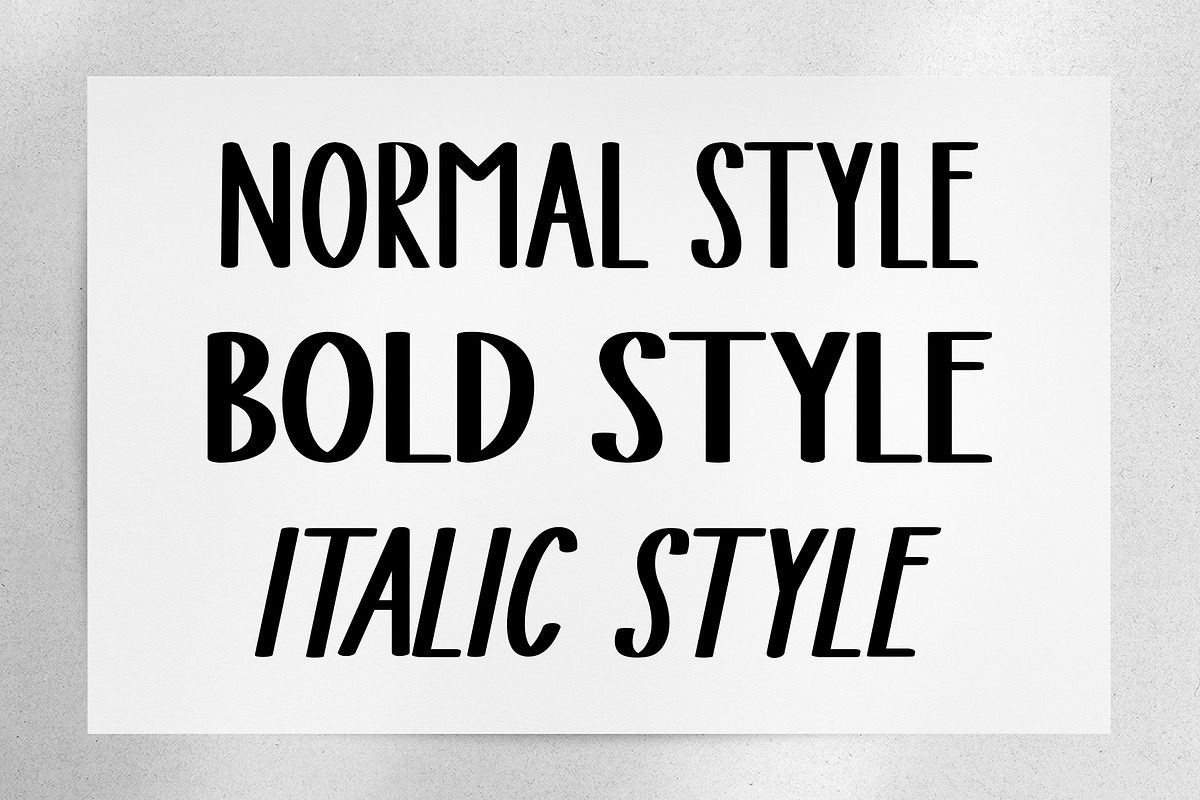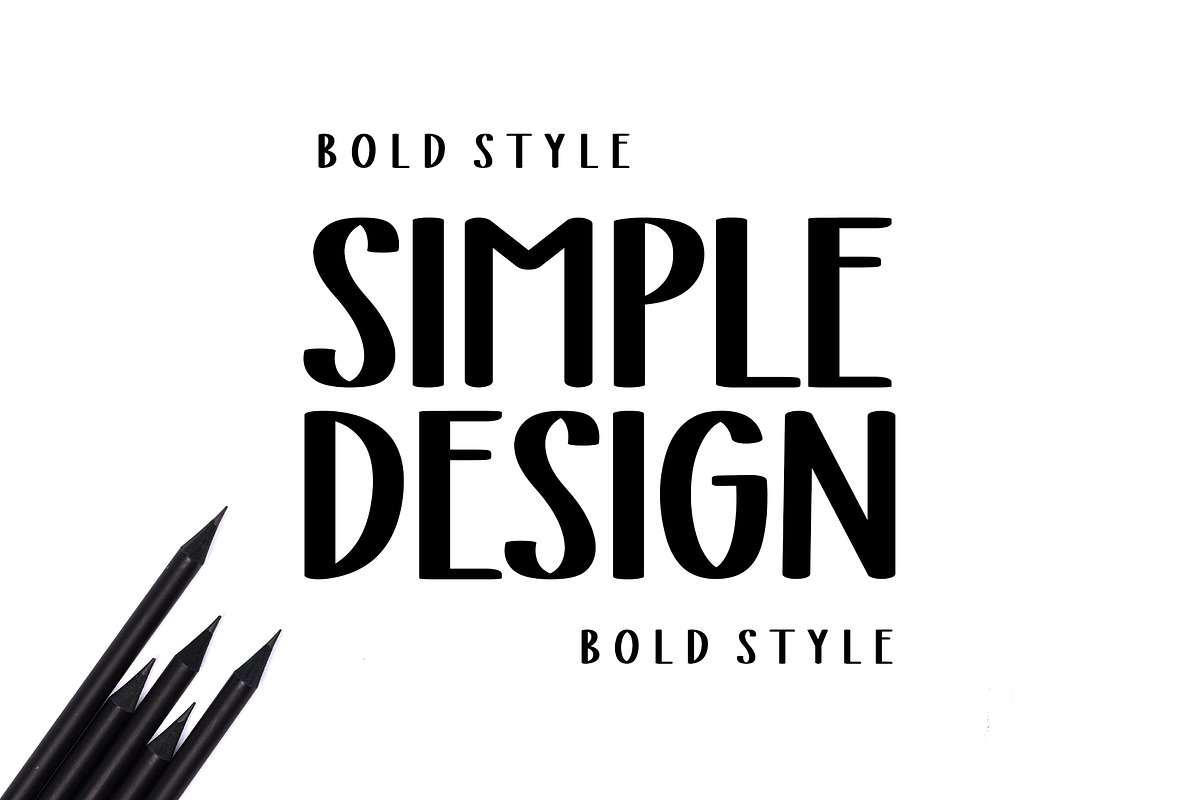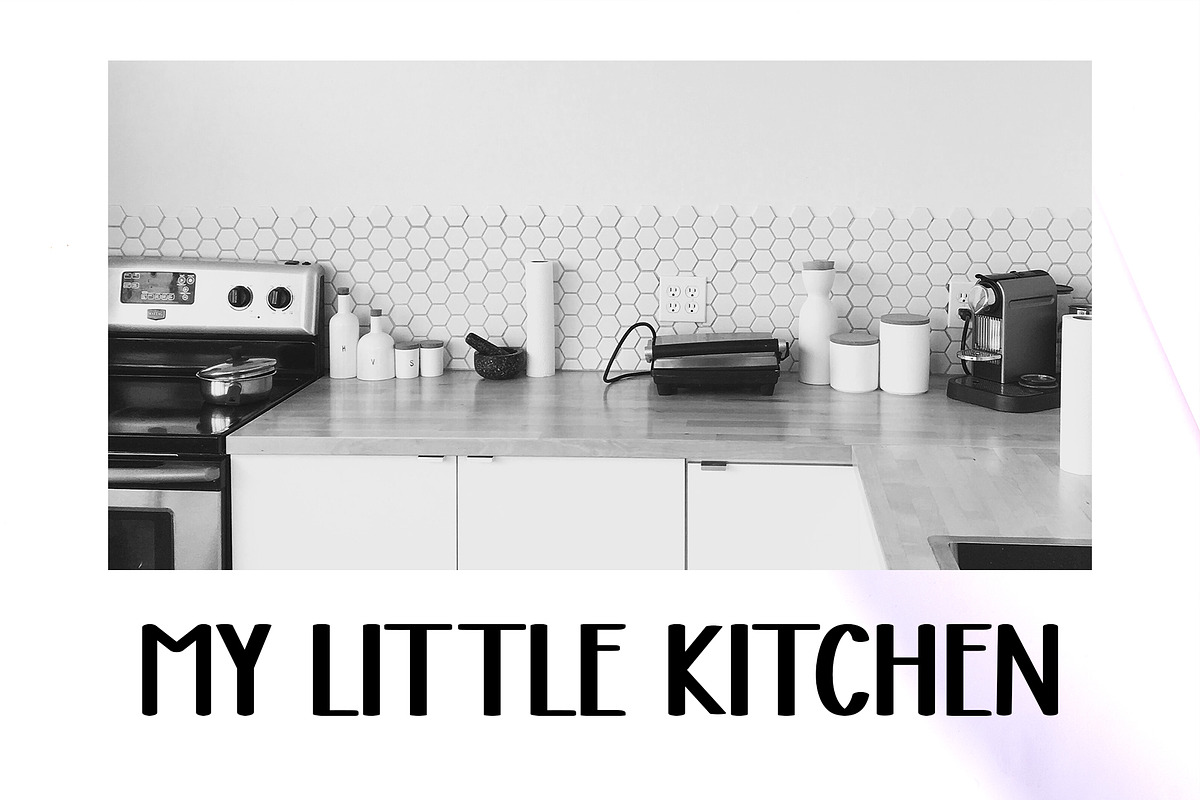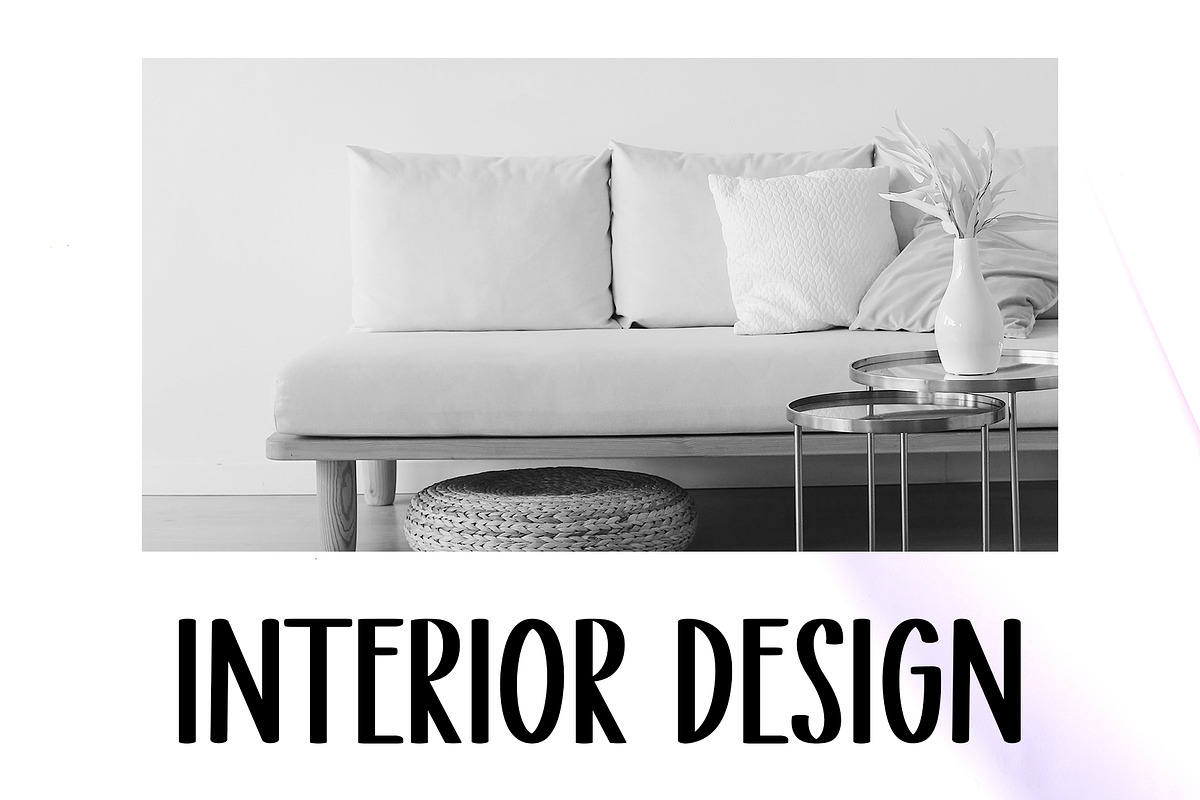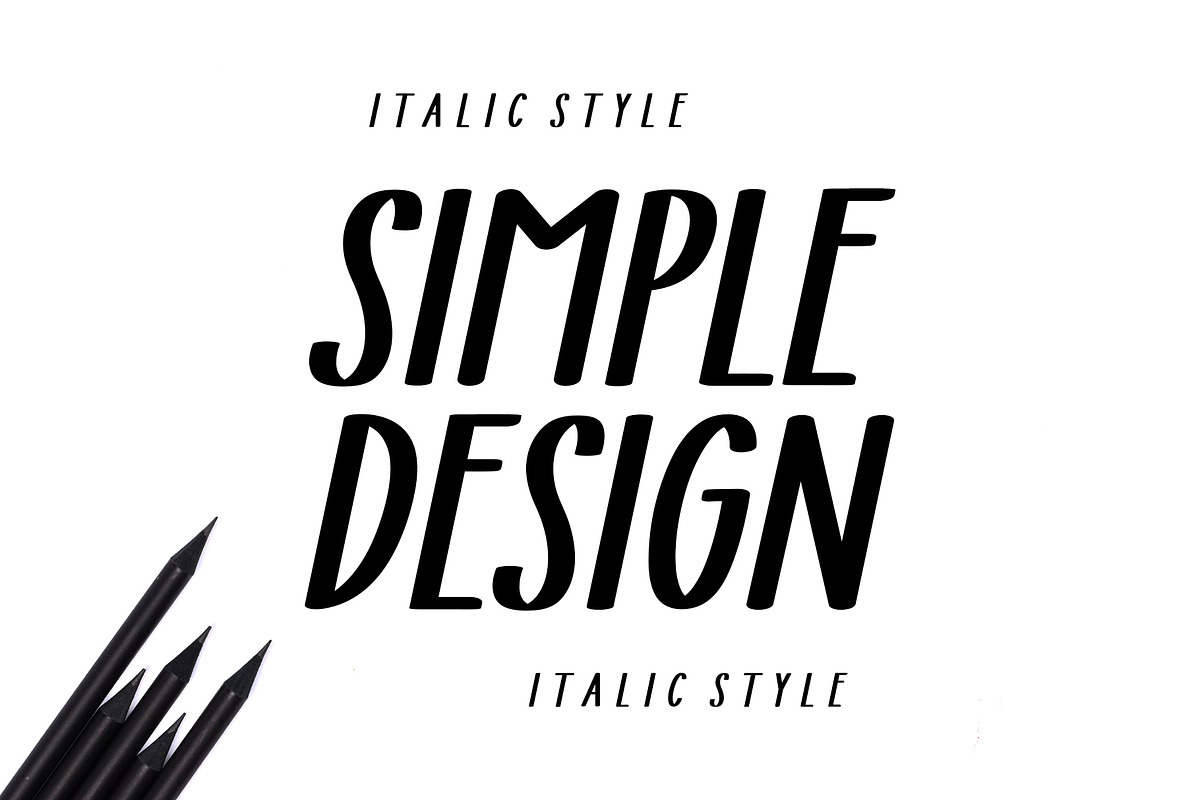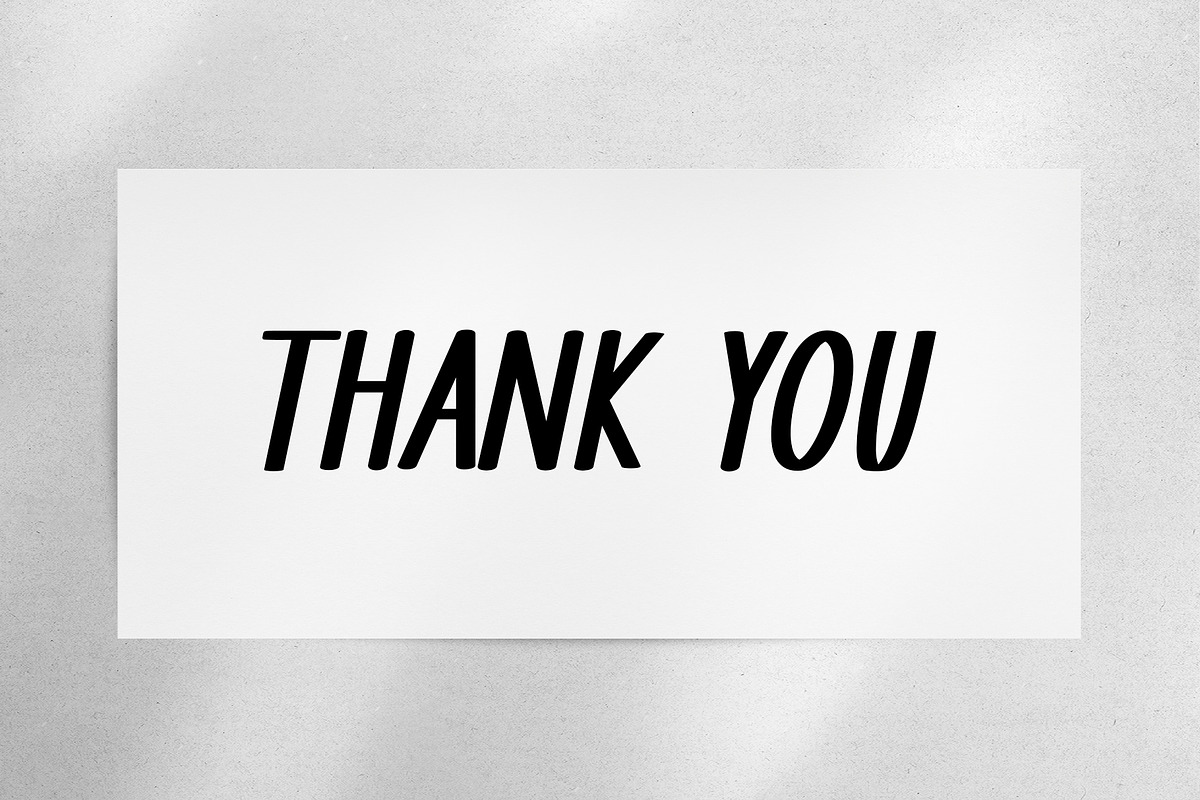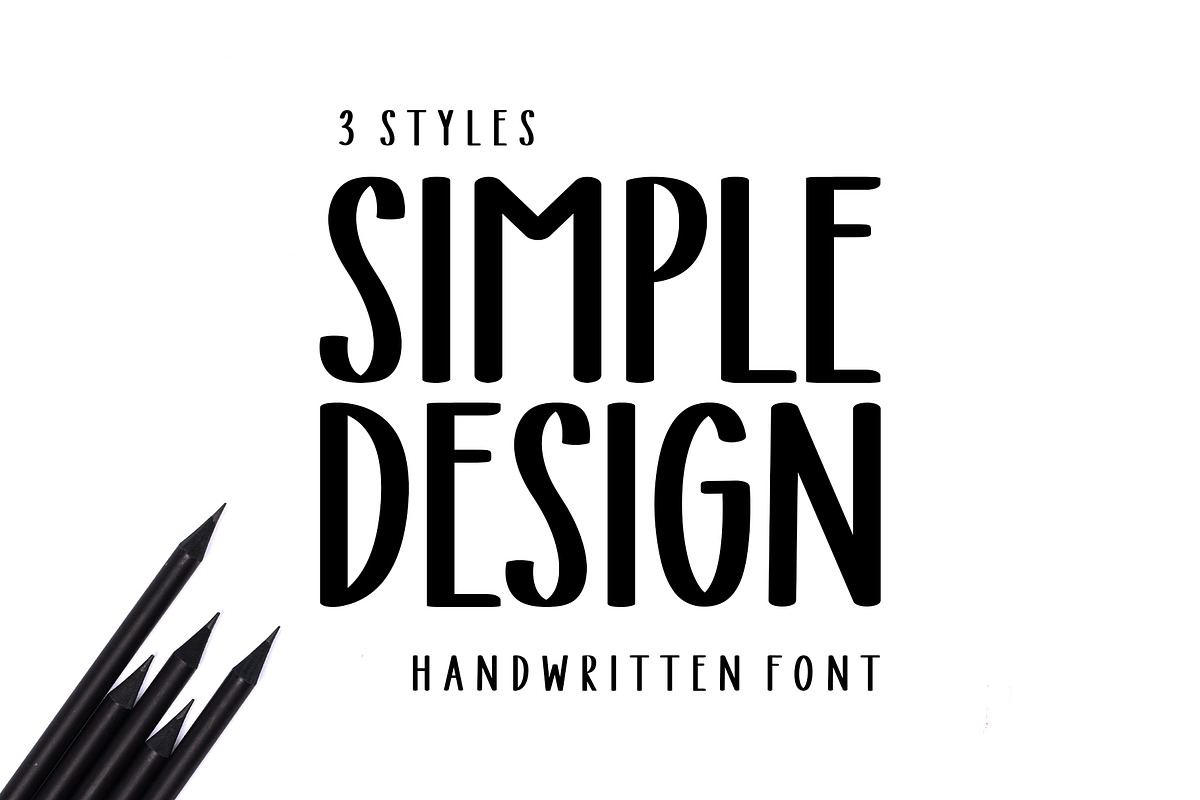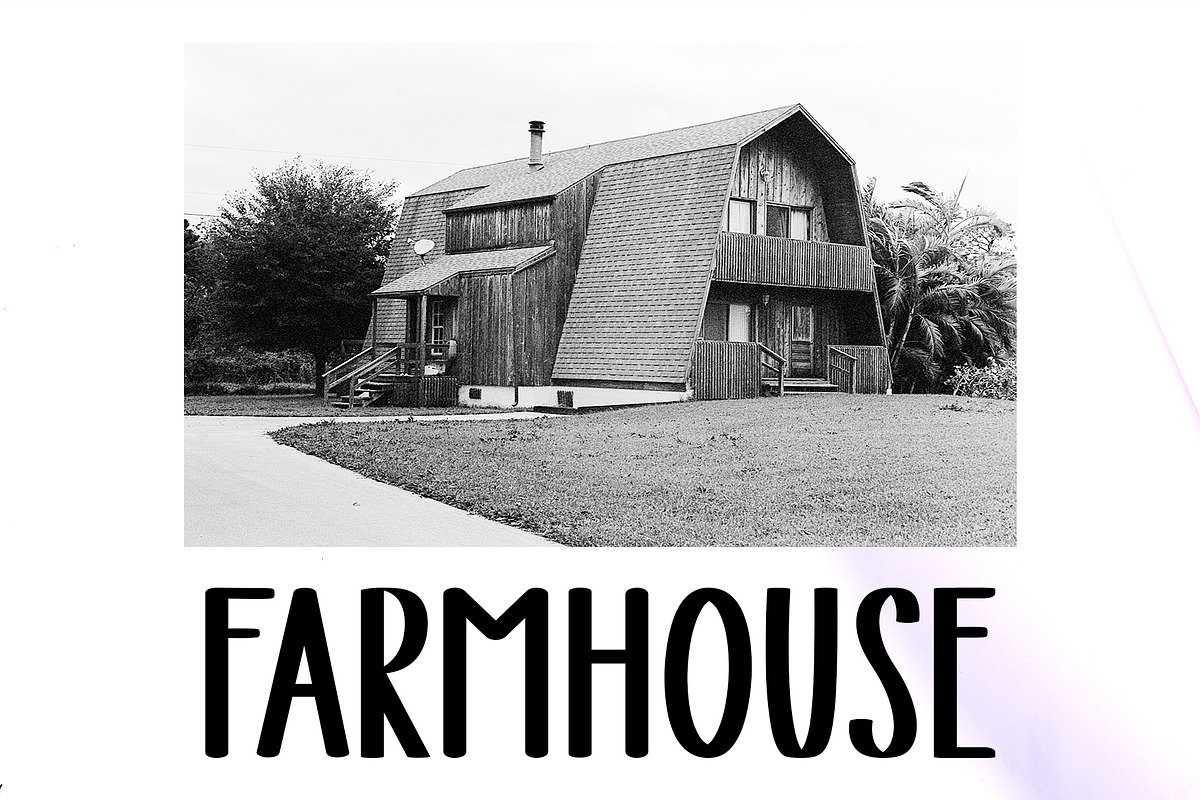
Simple Design
Simple Design is a neat, bold handwritten font that’s perfect for any type of work that requires a bold, balanced touch to each letter!